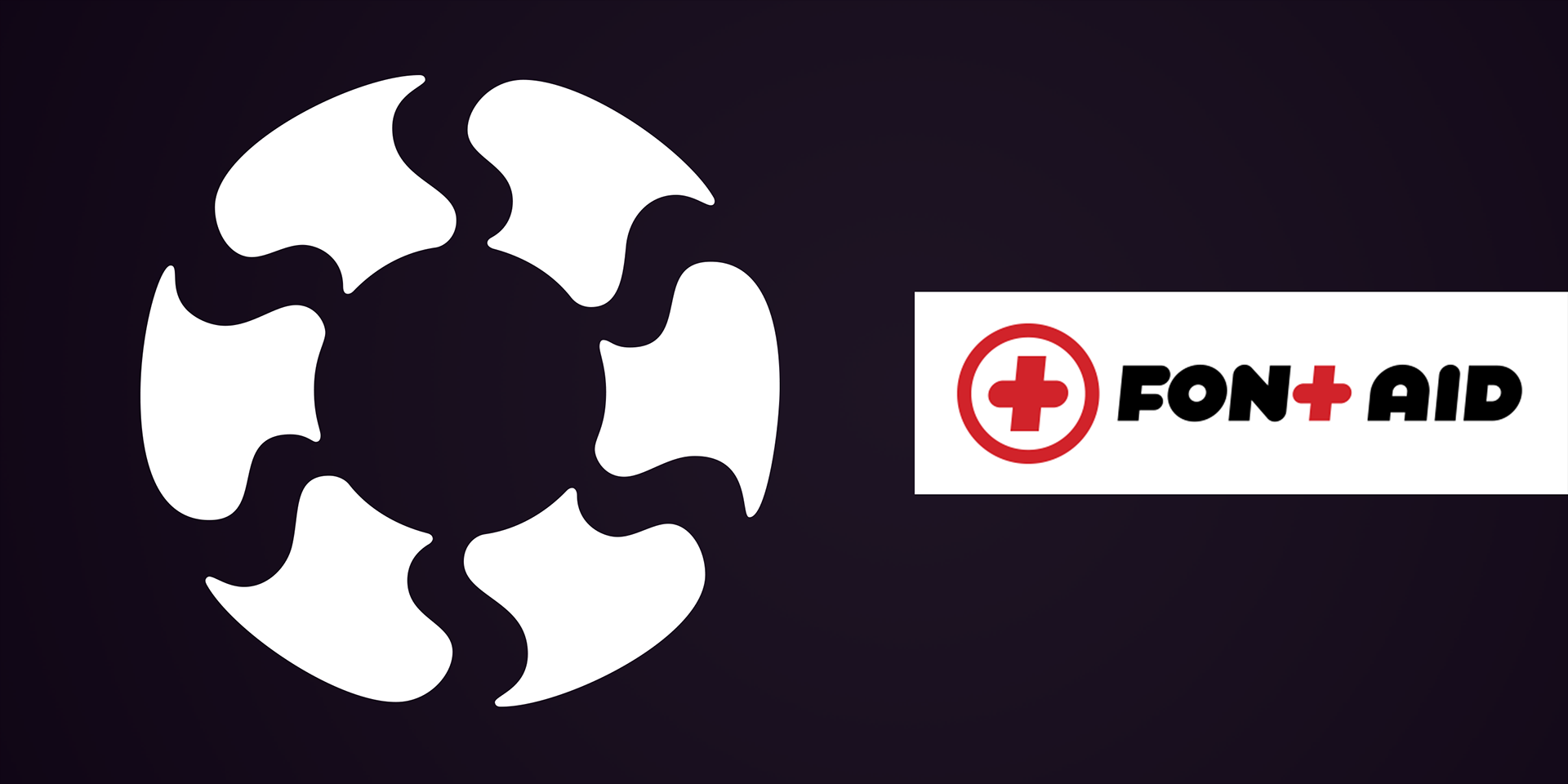
FontAiv VII – Here Comes The Sun
My contribution, titled "Here Comes The Sun," is a symbolic fusion of the sun—a beacon of hope—and a floating tube, representing the many lives saved during flood disasters.